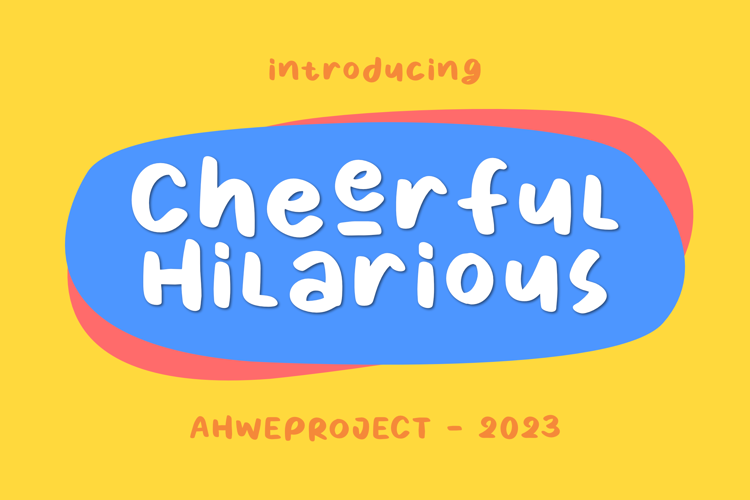
Cheerful Hilarious Font
Cheerful Hilarious is a fun and quirky handwritten display font. Its whimsical vibe is perfect for creating unique, kid-friendly designs.